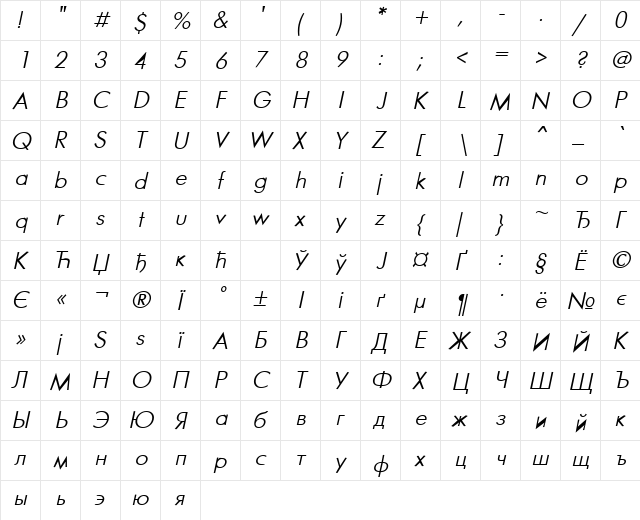
UkrainianFuturis Italic
UkrainianFuturis has a distinctly futuristic character, with geometric precision and clean angles that feel at home in technology, gaming, and sci-fi contexts. Its italic angle brings a sense of urgency and motion to the letterforms.